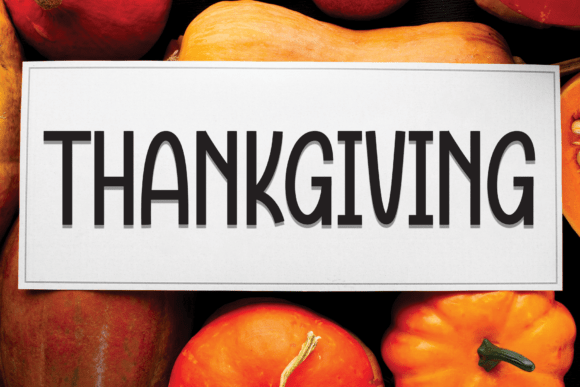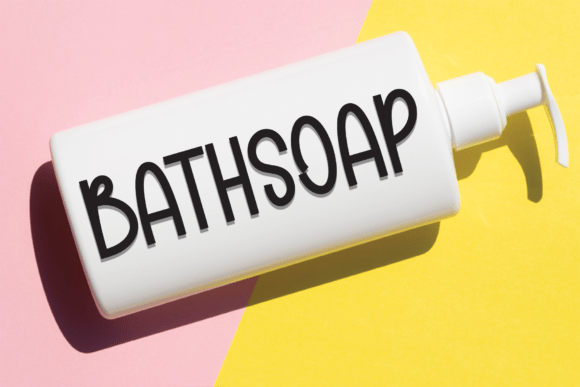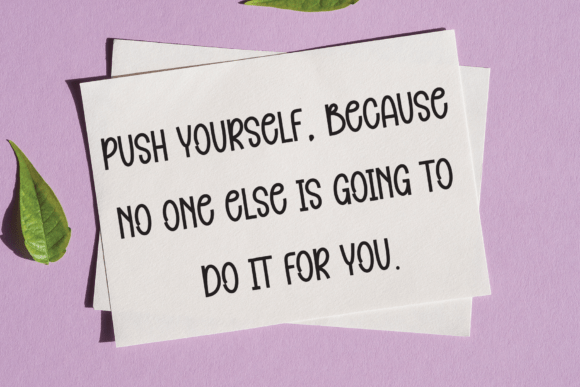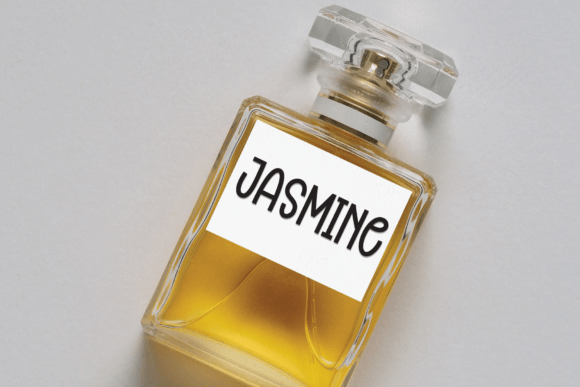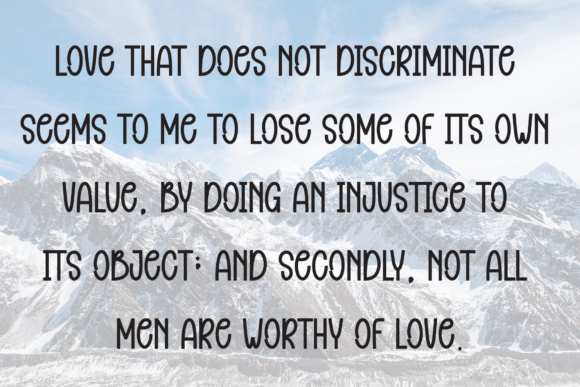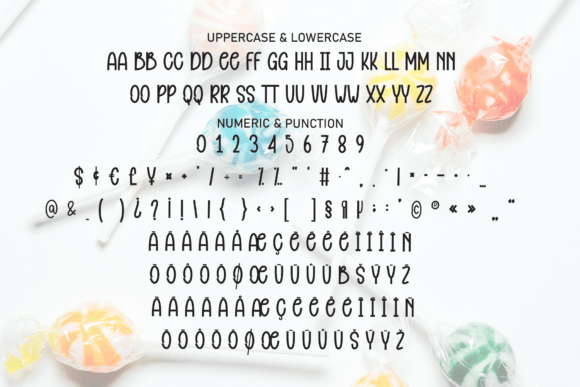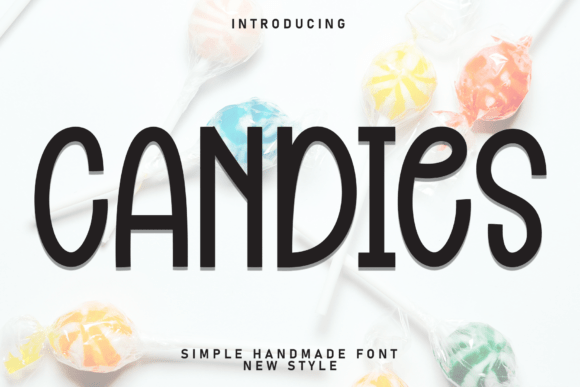
Candies Font: The Sweetest Addition to Your Design Projects
Are you looking for a font that exudes a fresh, friendly vibe and adds a touch of charm to your design projects? Look no further than Candies Font! This casual and neat display font is perfect for a wide range of applications, from packaging and posters to social media graphics and more.
What is Candies Font?
Candies Font is a display font designed to radiate a sense of approachability and friendliness. Its clean lines and relaxed structure make it an excellent choice for designers and crafters who want to add a touch of whimsy to their projects. The font’s polished appearance ensures that it remains legible and clear, even at larger sizes.
Key Features of Candies Font
- Clean Lines: Candies Font features clean lines that give it a crisp, modern appearance.
- Relaxed Structure: The font’s relaxed structure adds a touch of casualness, making it perfect for designs that require a friendly vibe.
- Polished Appearance: Despite its casual nature, Candies Font maintains a polished appearance that ensures it remains legible and clear.
- Versatile: Candies Font is perfect for a wide range of applications, from packaging and posters to social media graphics and more.
Uses for Candies Font
Candies Font is an incredibly versatile font that can be used in a variety of design projects. Here are some ideas to get you started:
- Packaging Design: Add a touch of whimsy to your product packaging with Candies Font. It’s perfect for food, beverage, or cosmetic packaging that requires a friendly, approachable vibe.
- Poster Design: Create eye-catching posters with Candies Font. Its clean lines and relaxed structure make it perfect for promoting events, products, or services.
- Social Media Graphics: Use Candies Font to create engaging social media graphics that stand out from the crowd. It’s perfect for creating Facebook posts, Instagram stories, or Twitter headers.
- Crafting Projects: Candies Font is also perfect for crafters who want to add a personal touch to their projects. Use it to create custom signs, banners, or other decorative items.
Why Choose Candies Font?
So, why choose Candies Font for your design projects? Here are just a few reasons:
- Unique Style: Candies Font offers a unique style that’s sure to set your designs apart from the crowd.
- Ease of Use: The font is incredibly easy to use, even for designers who are new to typography.
- High-Quality Design: Candies Font is designed to high-quality standards, ensuring that it looks great in any design project.
Tips for Using Candies Font
Here are a few tips for using Candies Font in your design projects:
- Pair with Other Fonts: Candies Font pairs well with other fonts, so feel free to experiment with different combinations.
- Use at Large Sizes: Candies Font looks great at large sizes, so don’t be afraid to use it for headlines or titles.
- Experiment with Colors: Candies Font looks great in a variety of colors, so experiment with different hues to find the perfect one for your design.